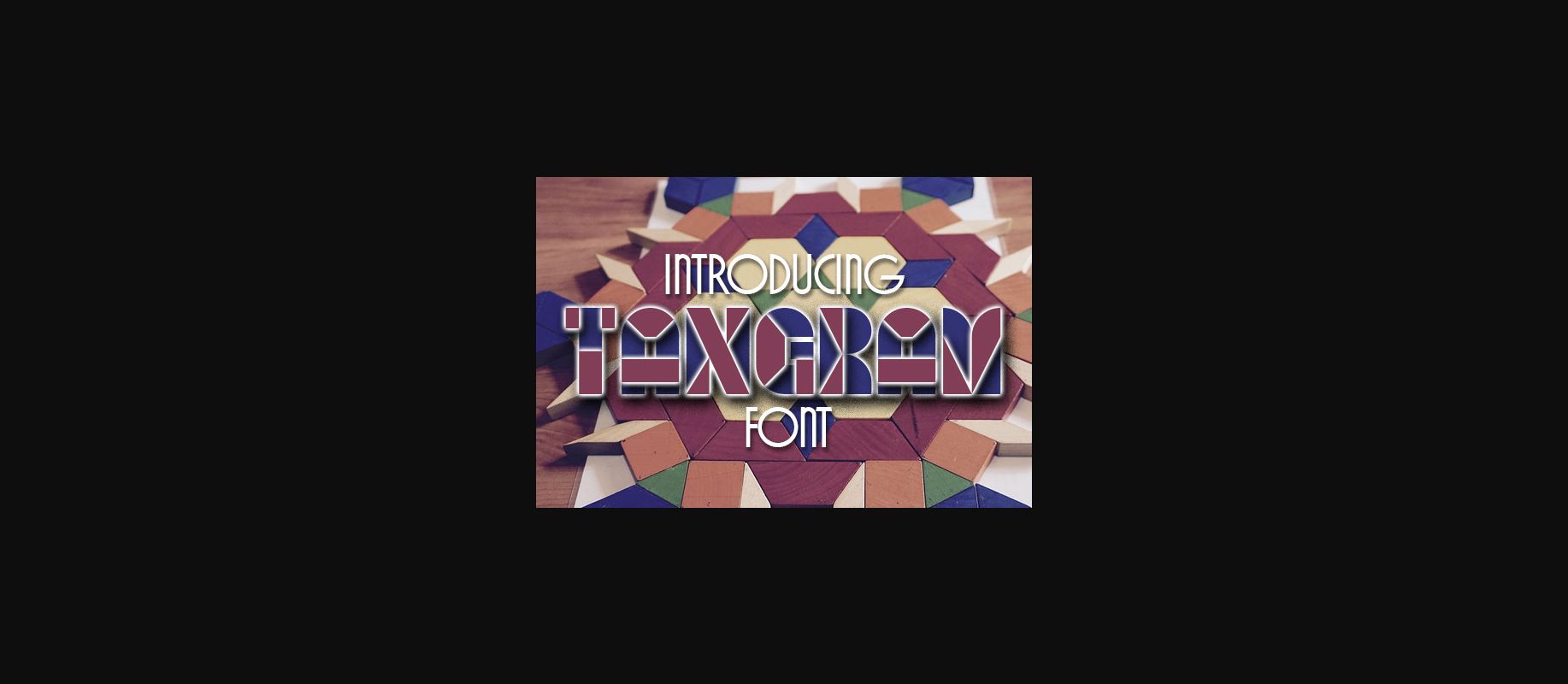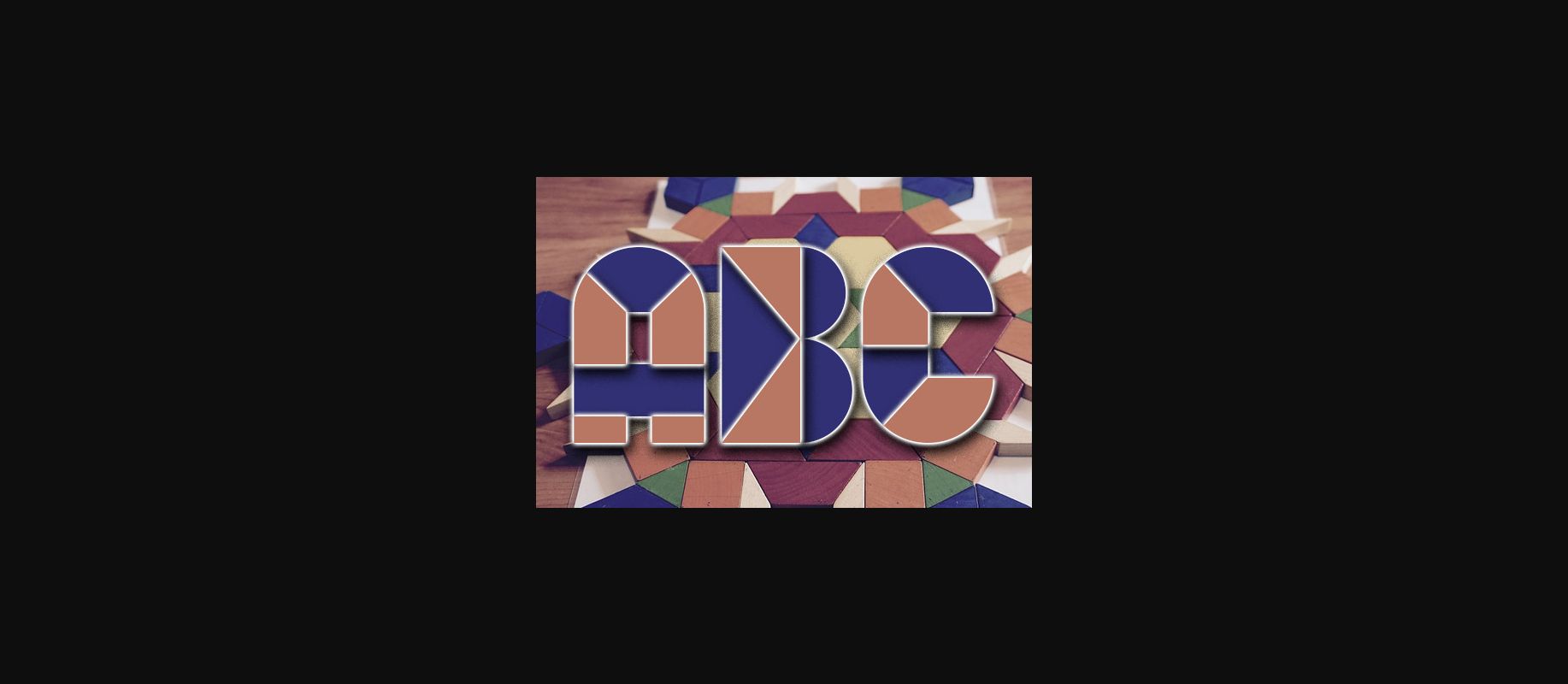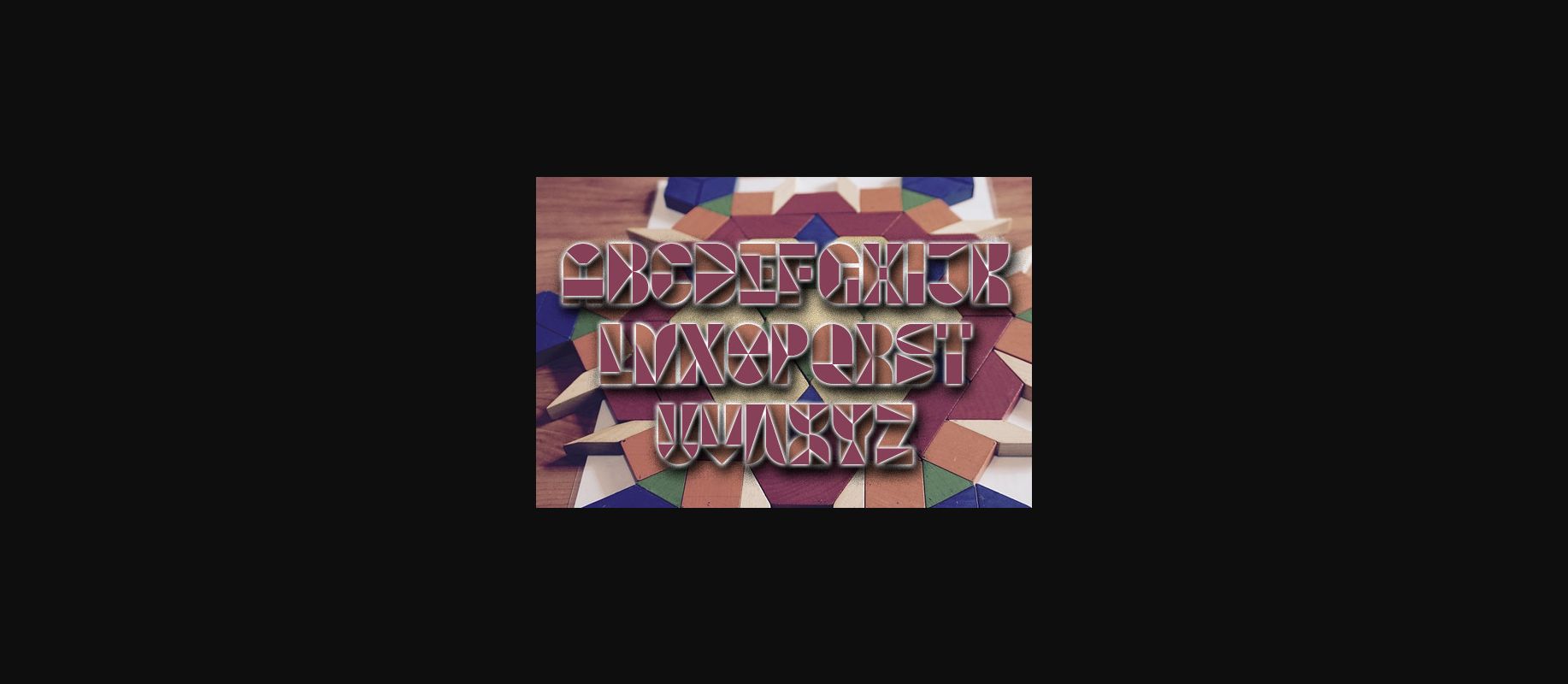
About Tangram Font
Tangram is an awesome dual-layered decorative font. It celebrates abstract shapes in all their eclectic beauty. Play with both styles and get endless combinations.